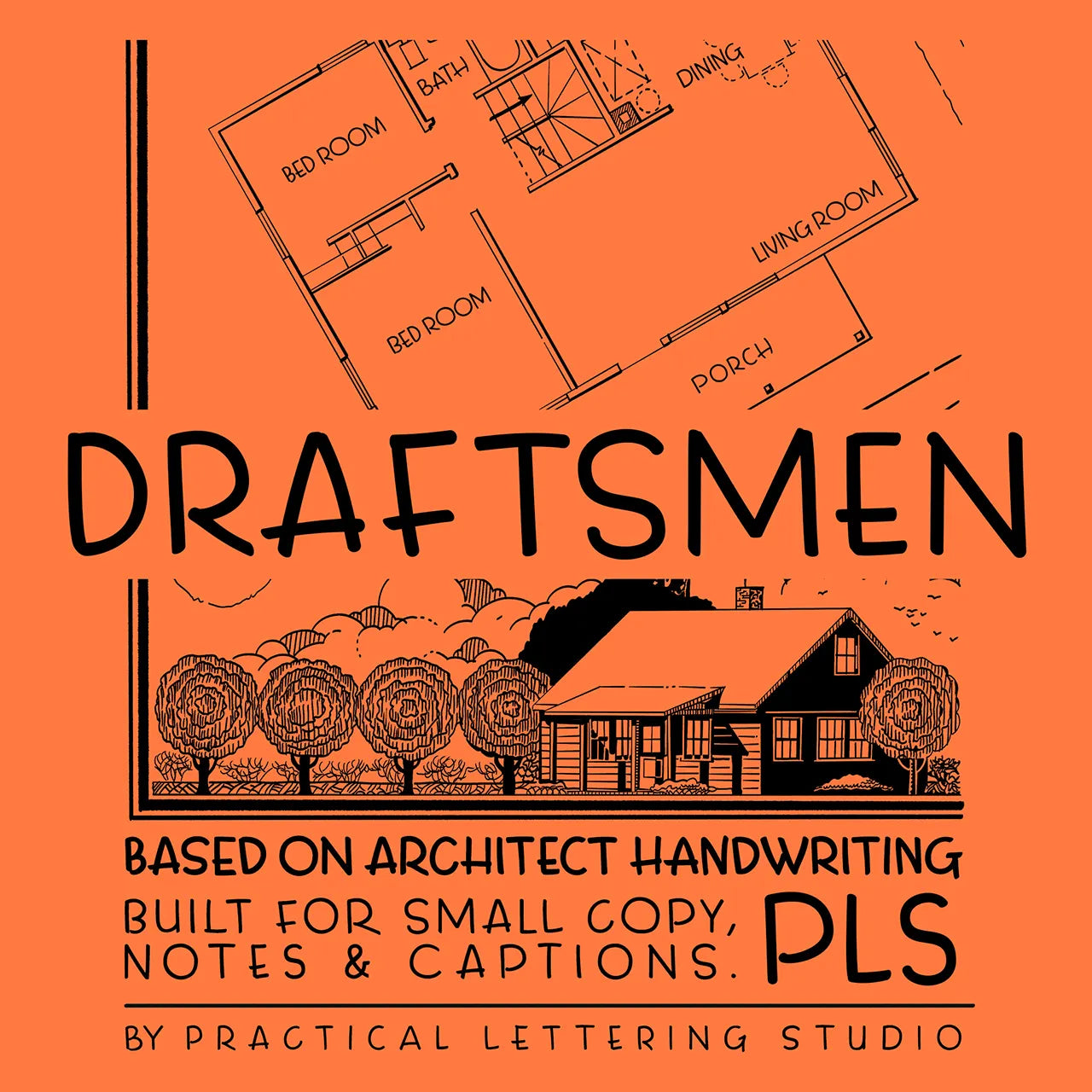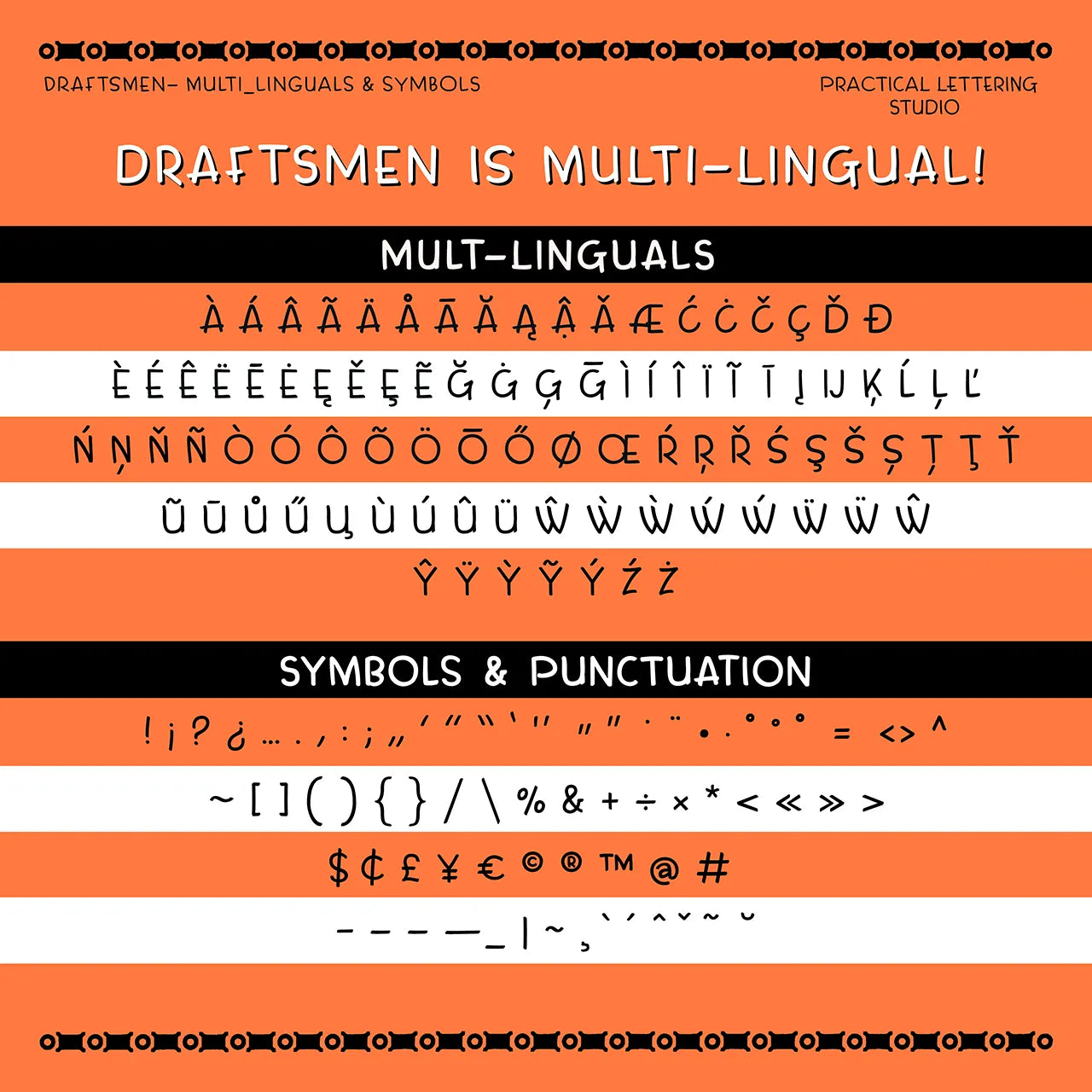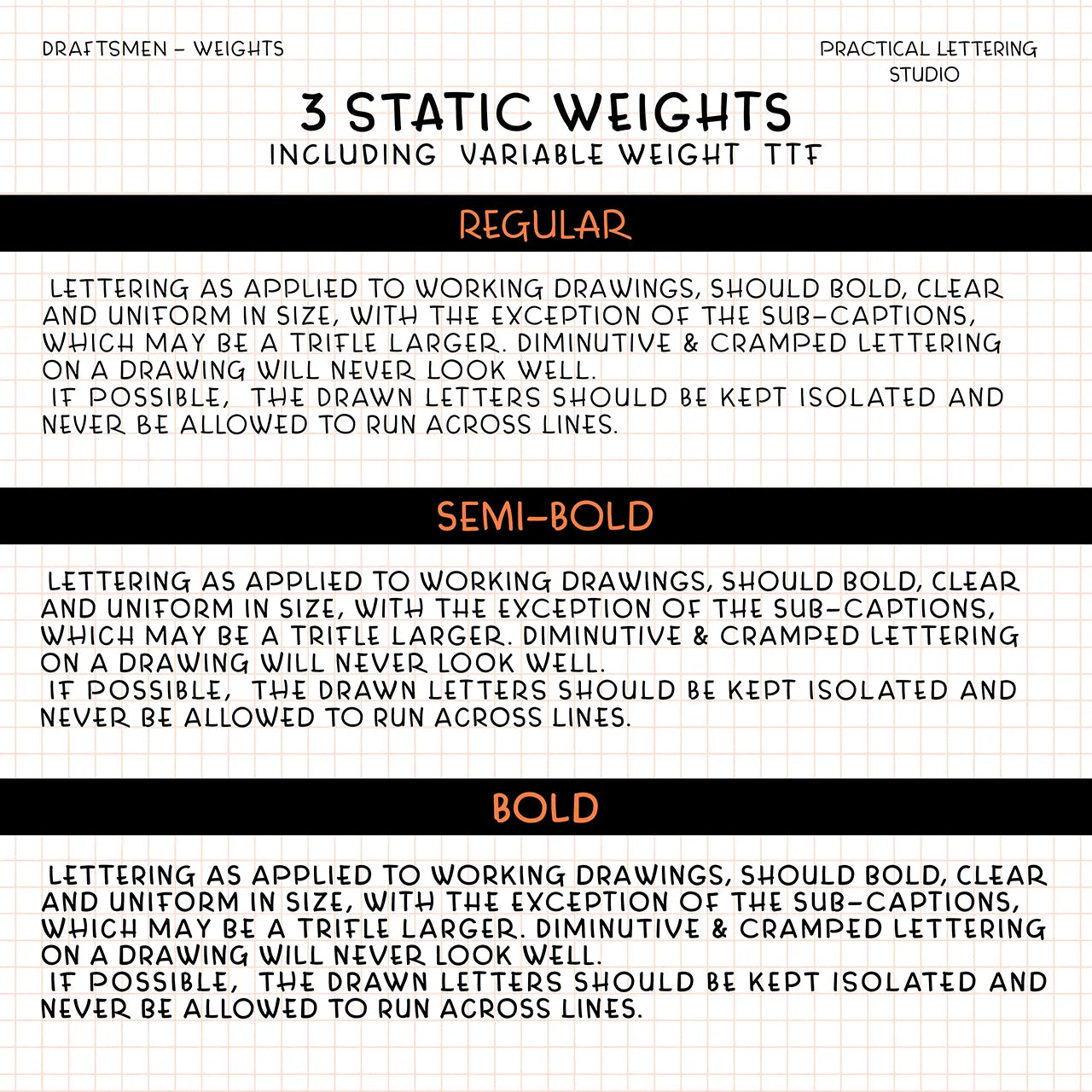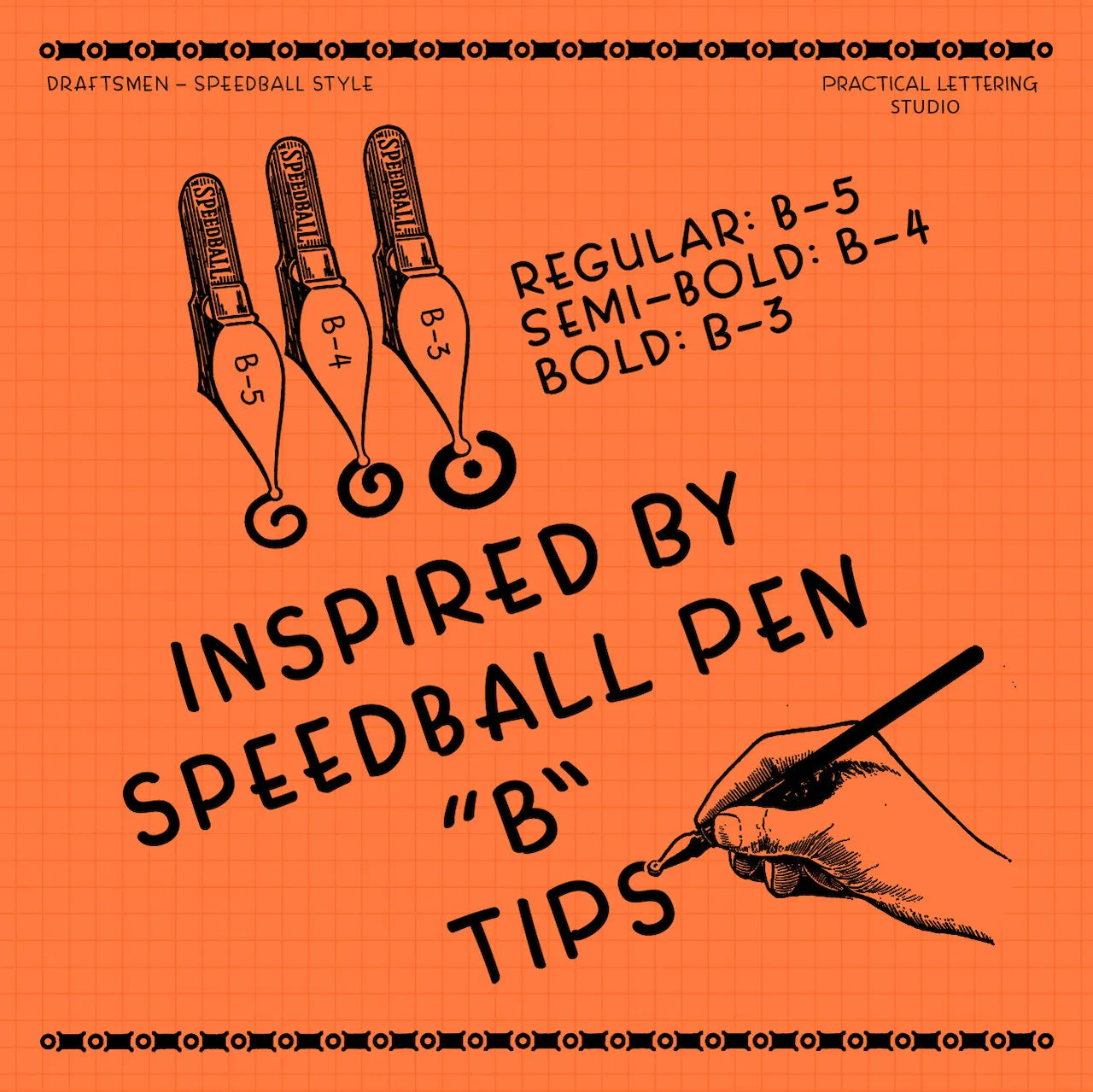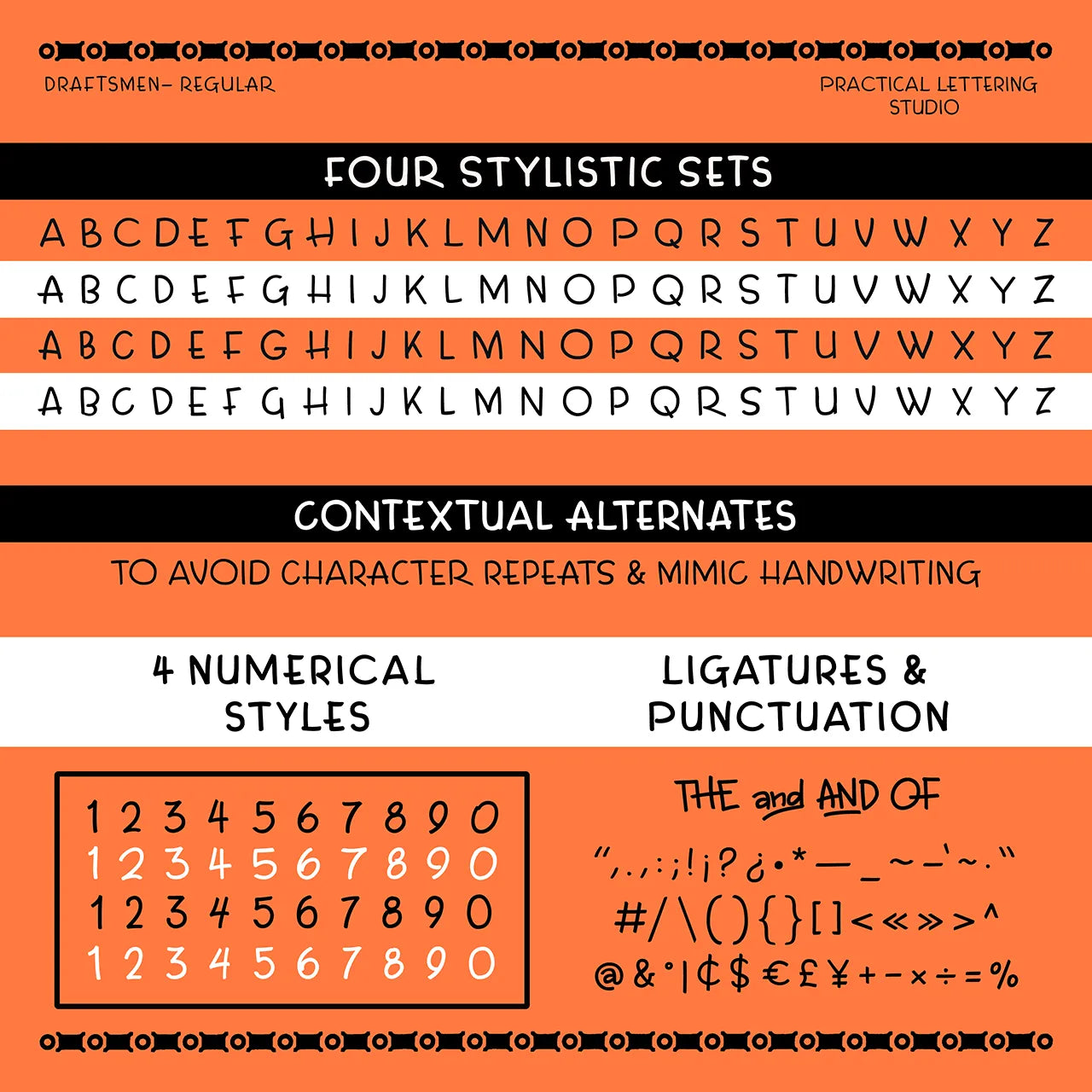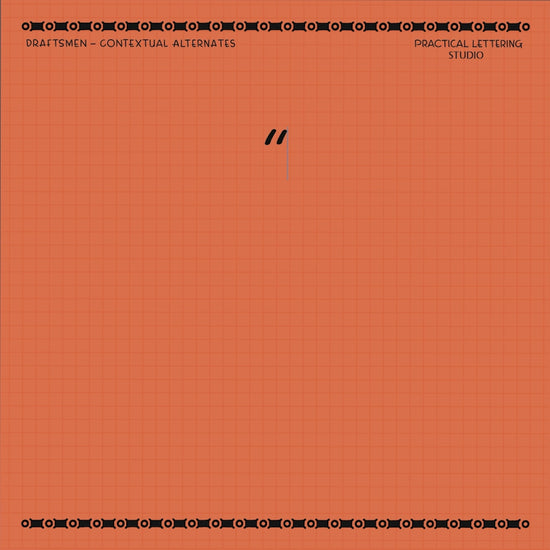
PLS Draftsmen
A font inspired by vintage architect handwriting!
DRAFTSMEN is a monoline font inspired by the traditional draftsmen handwriting seen on early 20th century blueprints and shop drawings. Engineers, draftsmen, and architects relied on single-stroke gothic capitals to mark dimensions, and notations. They were drawn quickly, clearly, and with single strokes. The look was shaped by the tools of the trade: round Speedball "B" nibs.
Draftsmen is ideal for labels, blueprint style notation, comic book captions, diagrams, and packaging details.
• English, Spanish, French, German, Italian, Portuguese, and Dutch, along with broad Latin-Extended coverage for additional European and African languages.
• Four stylistic sets
• Contextual Alternates (`calt`) that shuffle between all four styles to reduce repeats and mimic real handwriting.
• Uppercase, numerals, punctuation and multi-lingual characters.
• OTF: Includes CALT + ss01–ss04 for handwriting simulation
• Variable fonts: Exported per-style (one for each stylistic style) and does not include contextual alternate functionality.
Use variable files when you want continuous weight fine-tuning within a style, without the CALT shuffling.